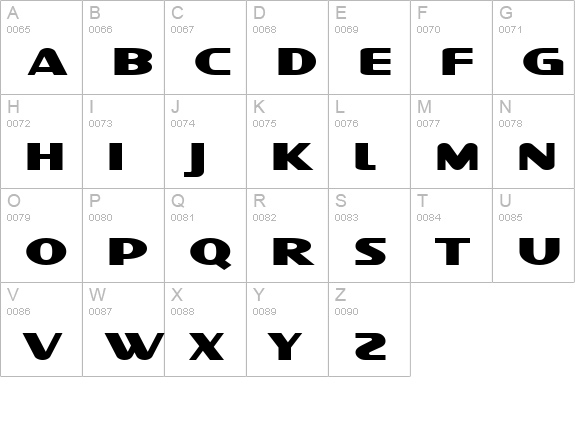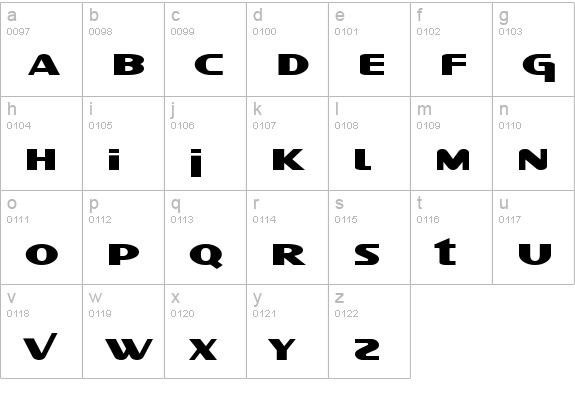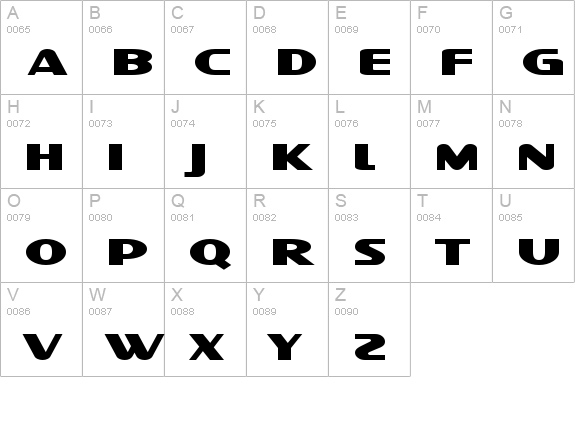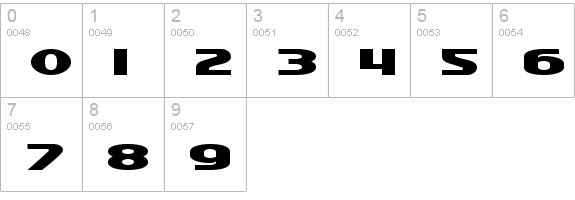
SF Intellivised Extended is a distinctive, extended-width variant in the SF typeface family \xE2\x80\x94 well suited to design and typography projects.
Introducing SF Intellivised Extended, a captivating font that merges futuristic aesthetics with a touch of sophistication. This font exudes a sense of intelligence and innovation, making it the perfect choice for projects that require a modern and cutting-edge look. With its extended letterforms and sleek lines, SF Intellivised Extended commands attention and effortlessly captures the essence of progress. Its unique design allows for seamless readability, making it suitable for a wide range of applications, including branding, advertising, and digital media. The versatility of SF Intellivised Extended is further enhanced by its extensive character set, which includes uppercase and lowercase letters, numerals, punctuation marks, and a variety of special characters. This font offers endless creative possibilities, allowing designers to truly make their vision come to life. What makes SF Intellivised Extended even more remarkable is that it is free to download at FontsMarket.com. Yes, you read that right – this stunning font is available at no cost, making it accessible to everyone. Whether you are a professional designer or a hobbyist, this font is a valuable addition to your collection. Downloading SF Intellivised Extended from FontsMarket.com is a breeze. Simply visit the website, locate the font, and click the download button. Once downloaded, you can start using it in your projects right away, unleashing its captivating beauty and enhancing the visual appeal of your designs. So, why wait? Elevate your designs to new heights with SF Intellivised Extended – the font that seamlessly combines futuristic elegance with effortless readability. Download it for free at FontsMarket.com and embark on a creative journey that is as limitless as your imagination.